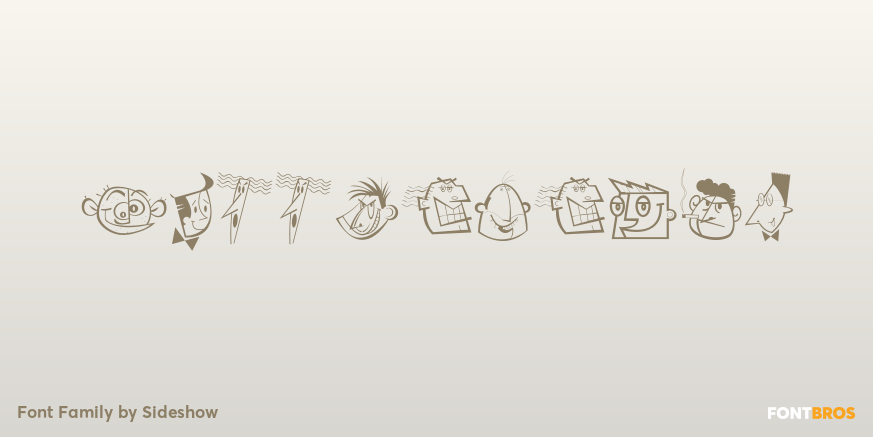
Littleheads
About Littleheads
Some are funny, some are goofy, some are happy, some are pretty, some are cute and some are ugly but they\’re all Littleheads. Jazz up your graphic needs with these fun little faces of men, women and children. Ideal for logos, business cards, newsletters,…